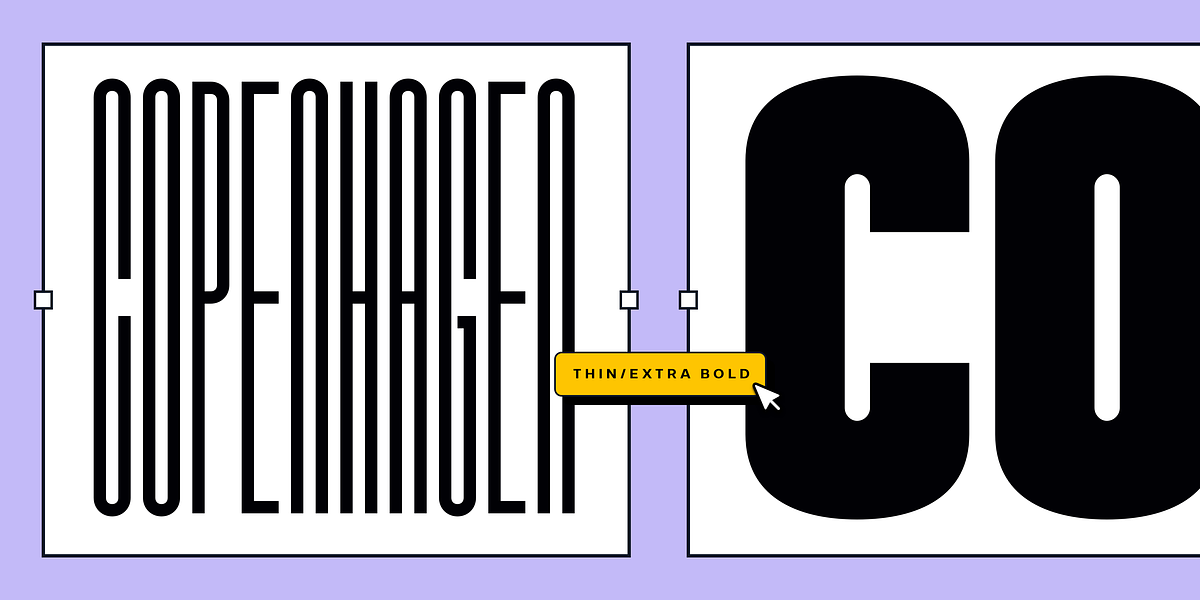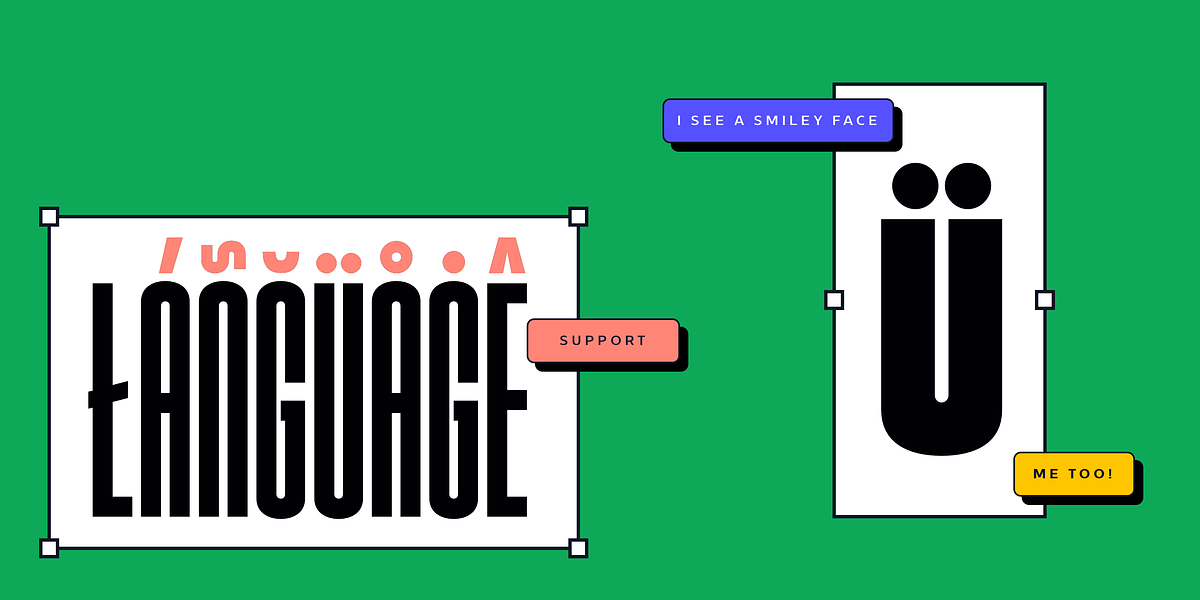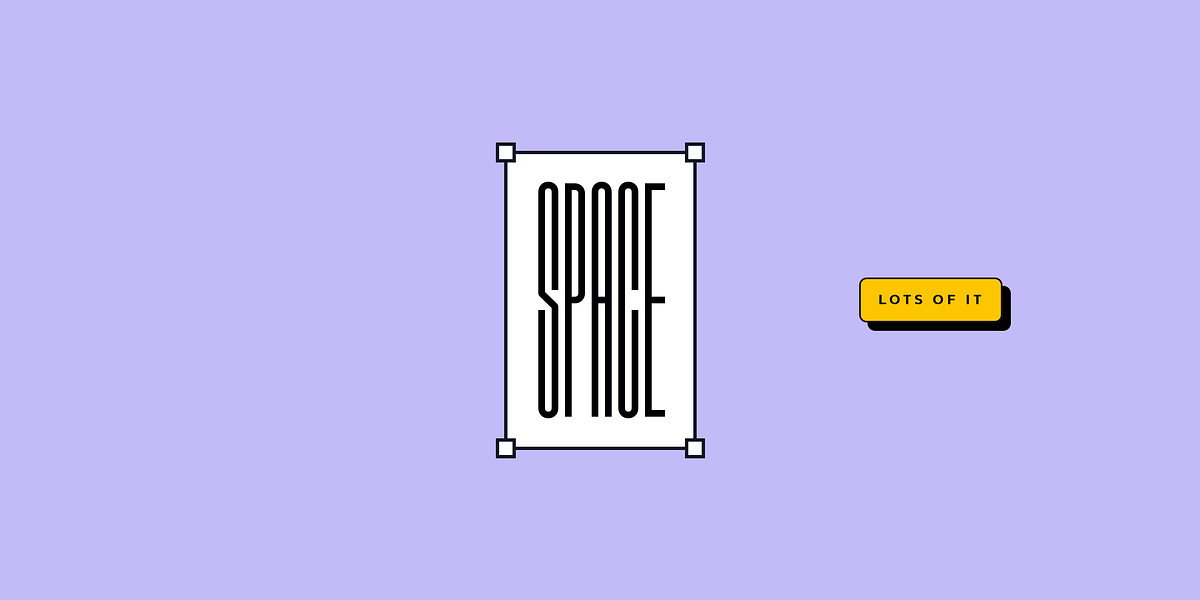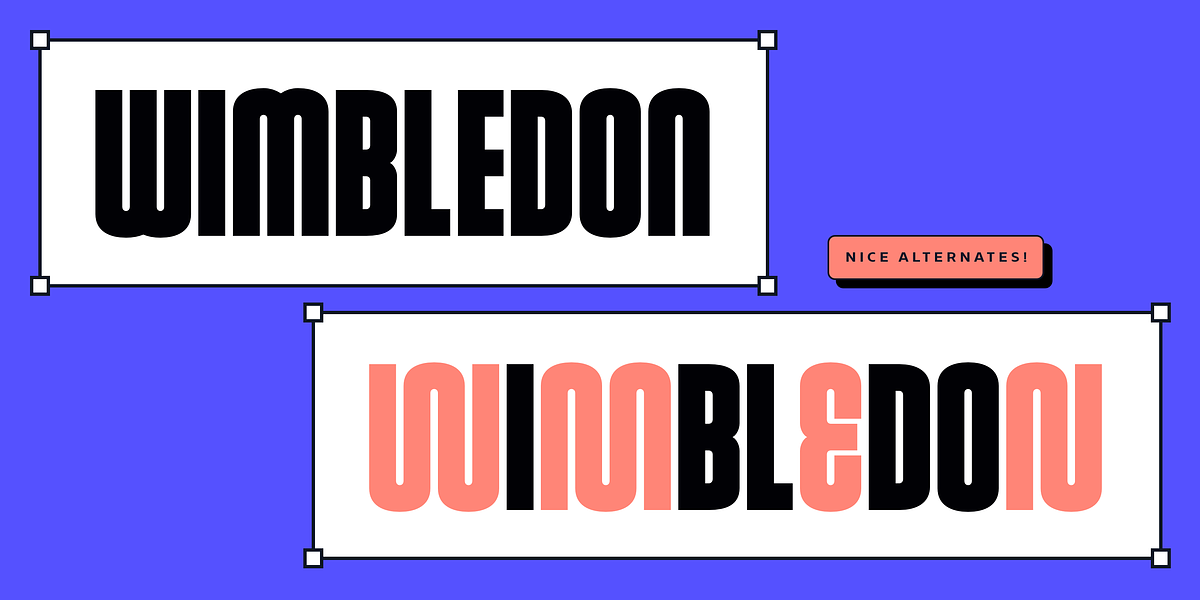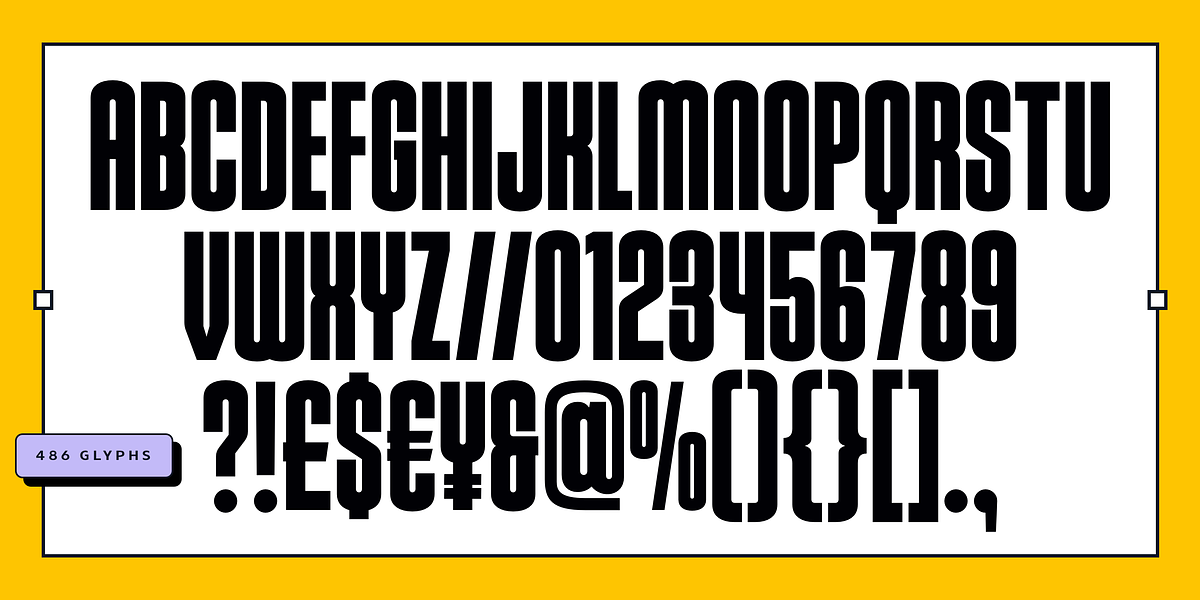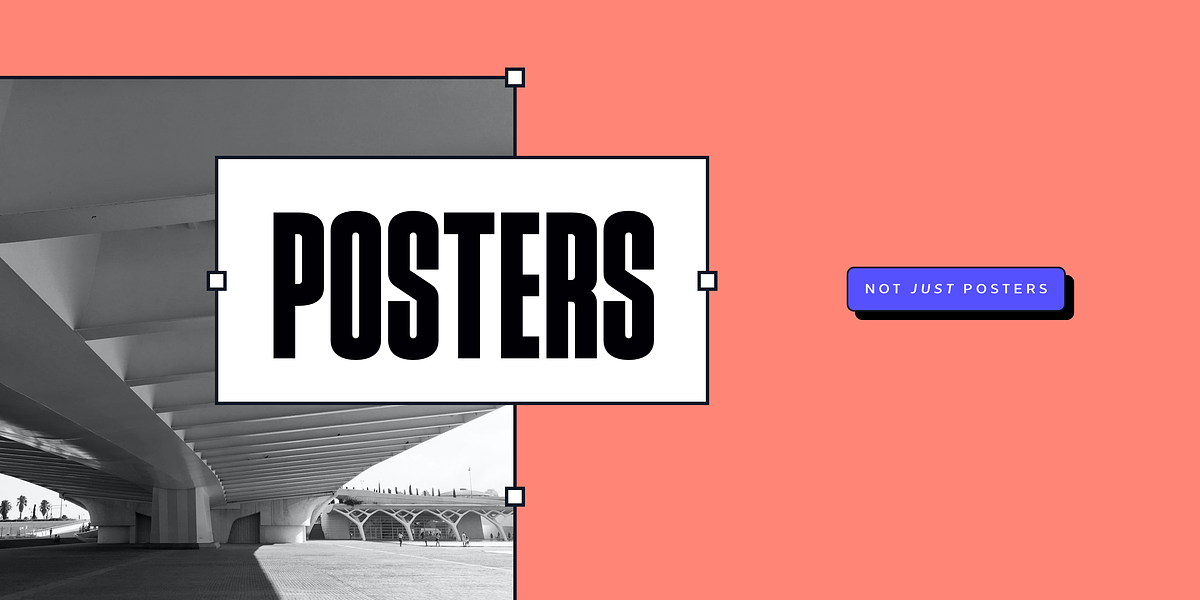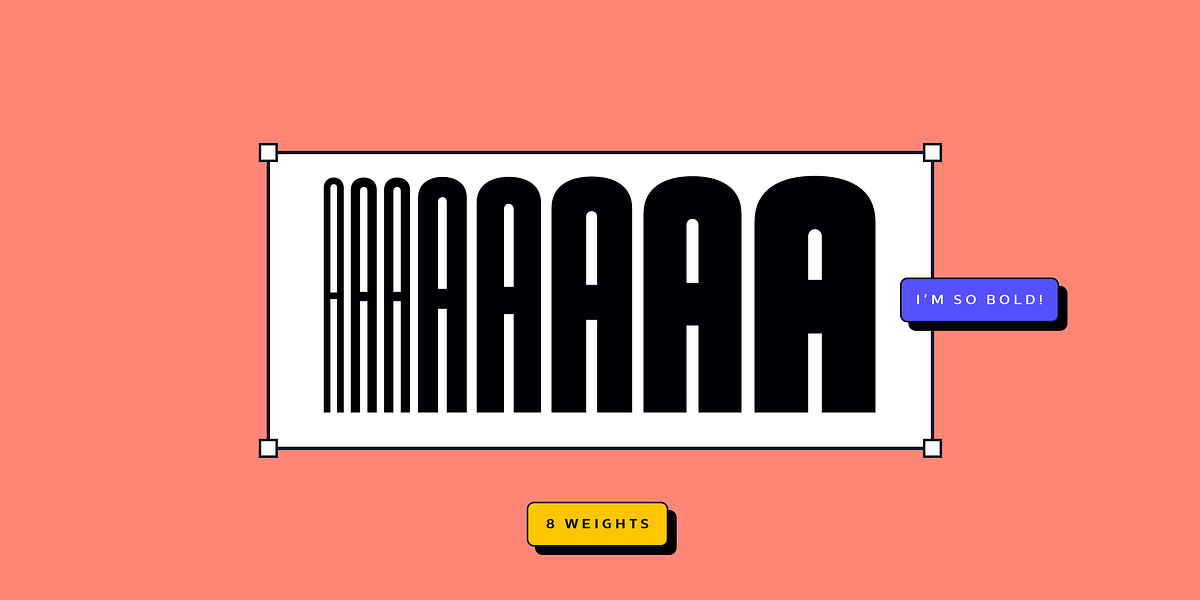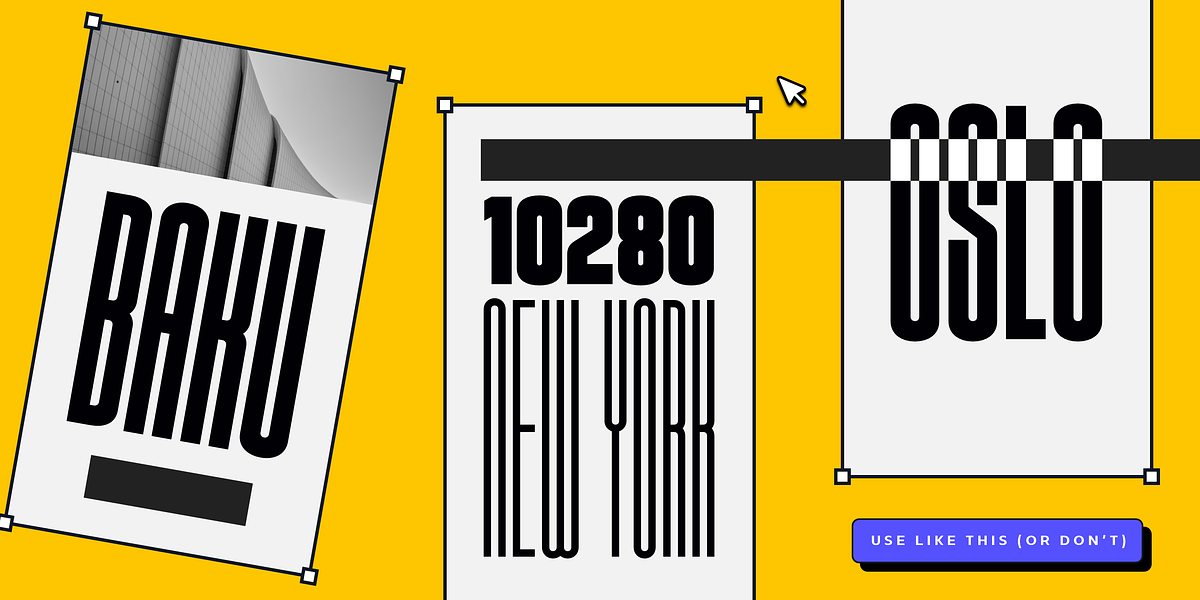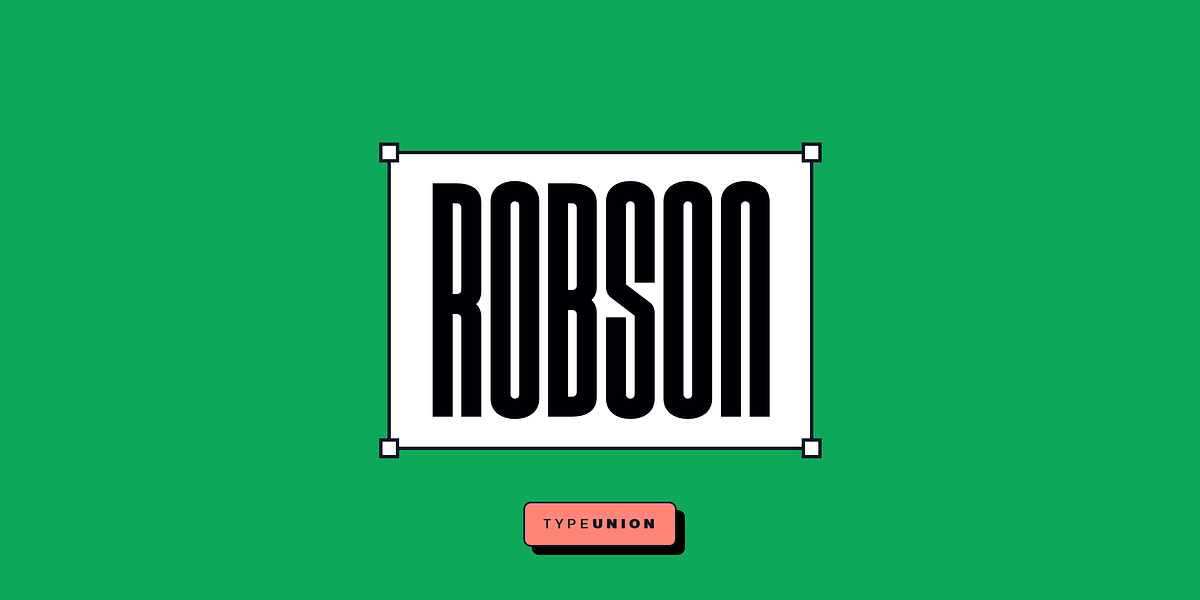
Robson
Robson is a contemporary condensed sans serif font designed for display purposes. It features eight weights ranging from thin to black, and includes stylistic alternates for added versatility. Robson's all-caps design makes it suitable for headlines, branding, and other impactful visual applications.